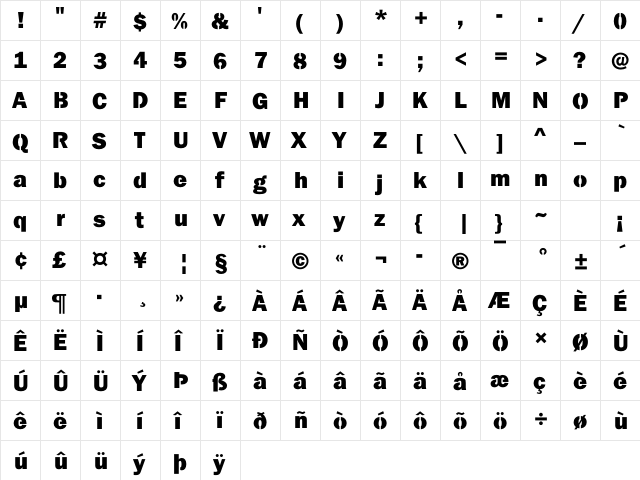
Cliche Regular Font Preview
Cliche Regular
Cliche Regular Font Details
Design Context for Cliche Typeface
Cliche is a composed and adaptable typeface that performs quietly and consistently across a wide range of design contexts.